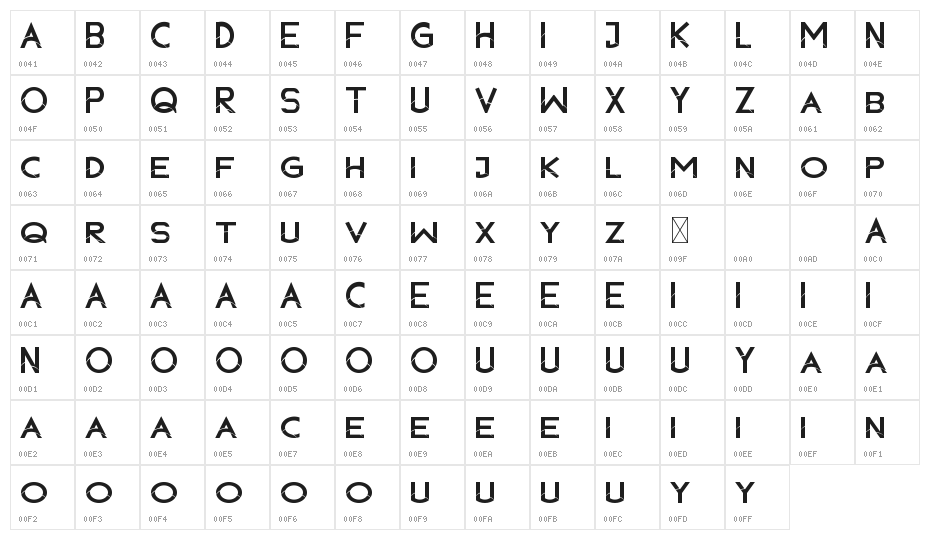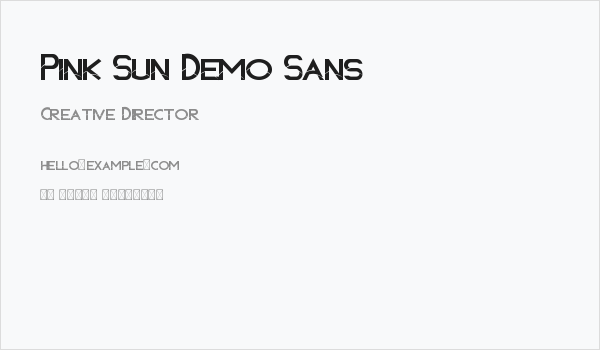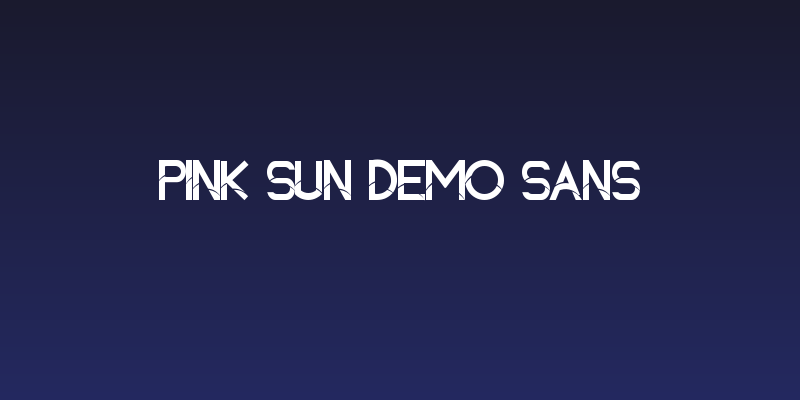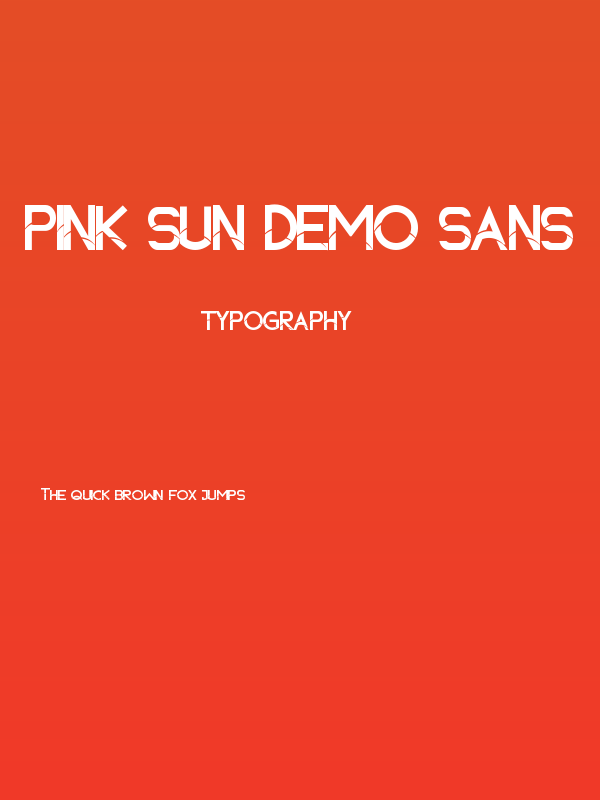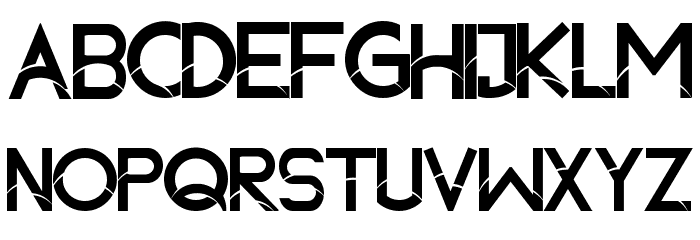
Pink Sun Demo Sans Font
This font features a bold and geometric design with a modern, futuristic aesthetic. The characters are constructed with sharp angles and clean lines, creating a sense of precision and clarity. The uppercase letters are particularly striking, with unique cutouts and intersecting lines that add a dynamic visual interest. The overall appearance is sleek and contemporary, making it suitable for projects that require a strong and impactful visual presence. The font's design is consistent across all characters, maintaining a cohesive look that enhances readability while still offering a distinctive style.
| Proposed Projects | Ideal for branding, logos, posters, and digital media where a modern and impactful look is desired. |